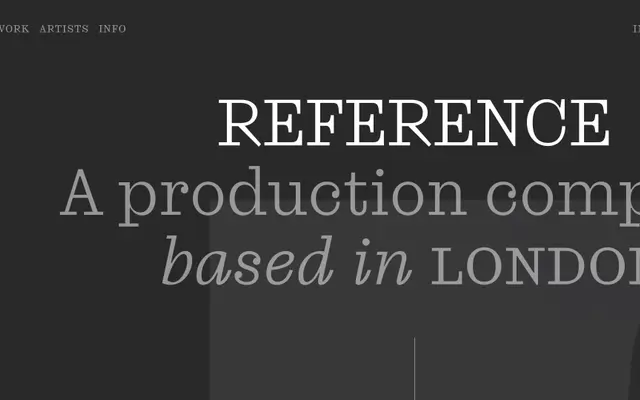
Kreol Text specimen from Studio Rene Bieder
A text-optimised serif in six weights with italics, forming part of the three-cut Kreol family alongside Standard and Display variants.
Kreol Text sits at the smaller end of a three-member optical size system, joined by Kreol Standard and Kreol Display. Its twelve styles run from Light to ExtraBold with matching italics, and OpenType features include small capitals, oldstyle figures, fractions and a range of character alternates for a, g, y and several other letters. The overall system points toward editorial and publishing use where consistent performance across body text and display settings is required.
The name and sibling families (Kreol Standard, Kreol Display) suggest a multi-optical-size serif system; the text cut is optimised for smaller sizes with features typical of contemporary text serifs.